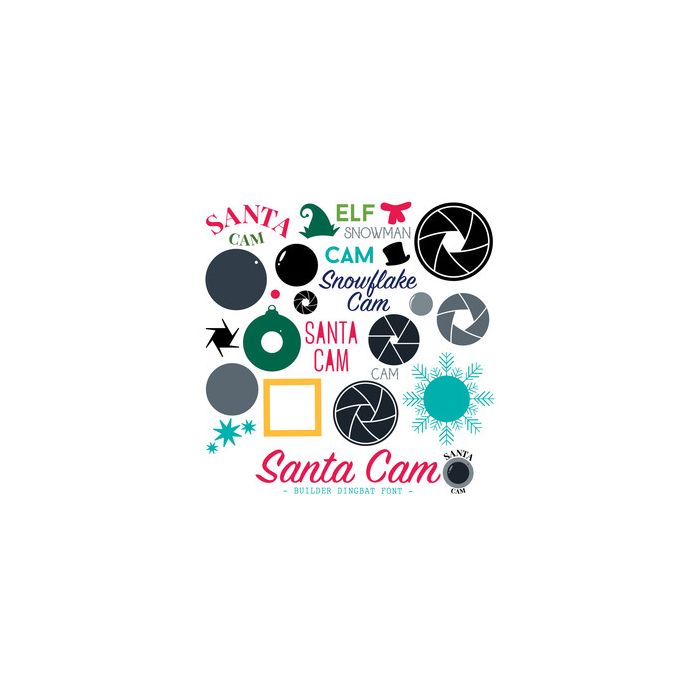
Santa Cam Builder Dingbat Font. Includes 26 elements to build your custom Santa cam or Christmas themed camera. All are assigned to an upper case letter starting with 'A' or can be accessed via glyphs. For more design ideas, coordinating designs & products and inspiration, please visit my blog http://www.sarahhurleyblog.com